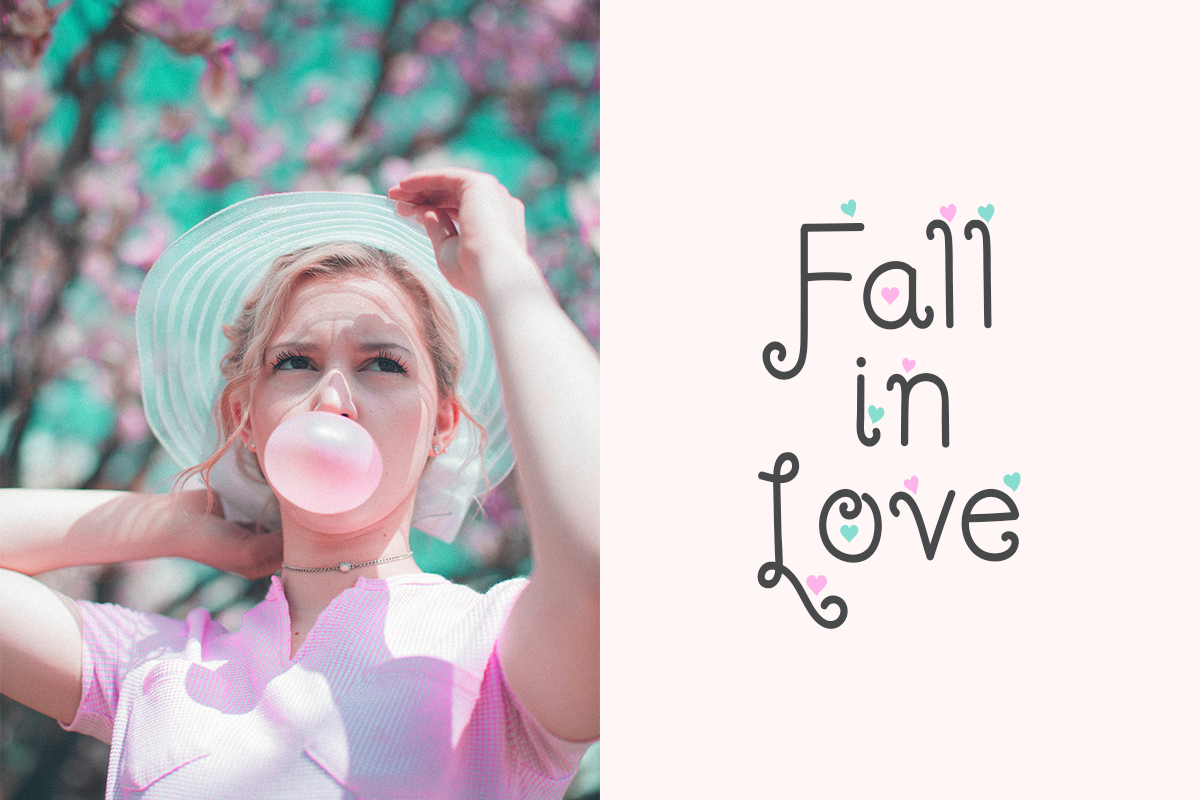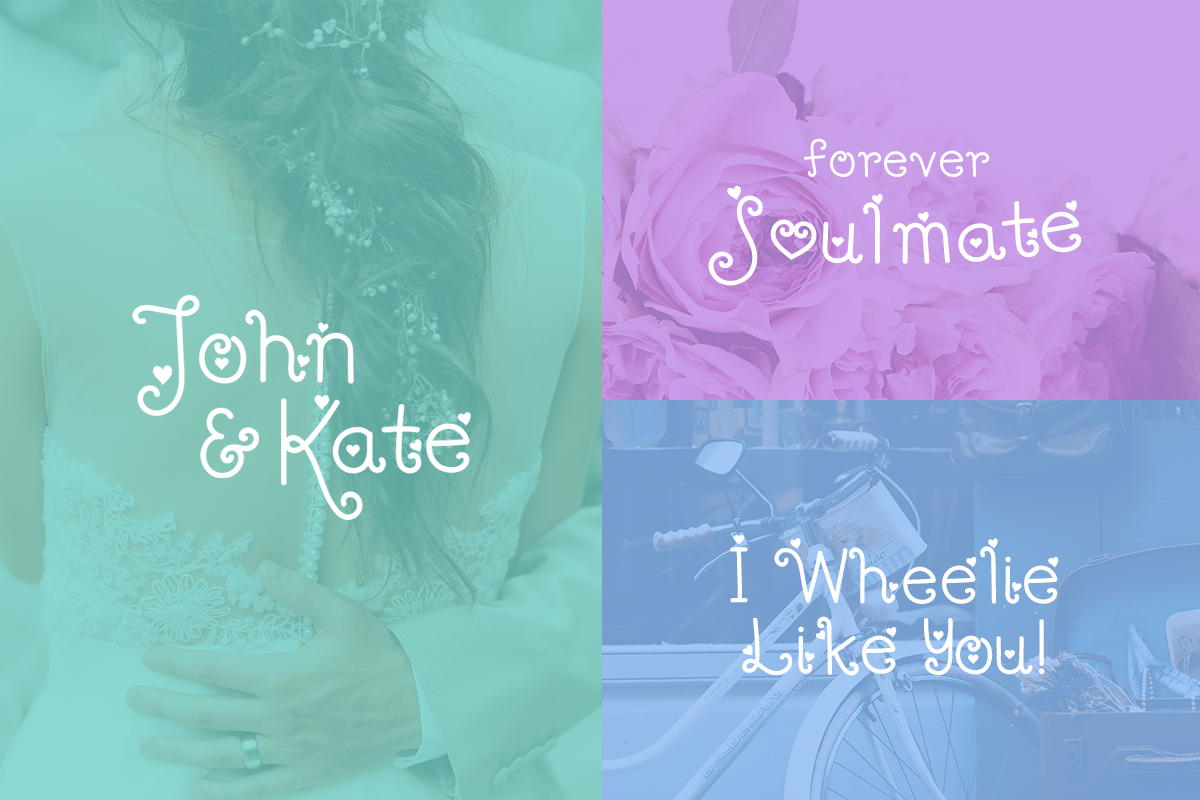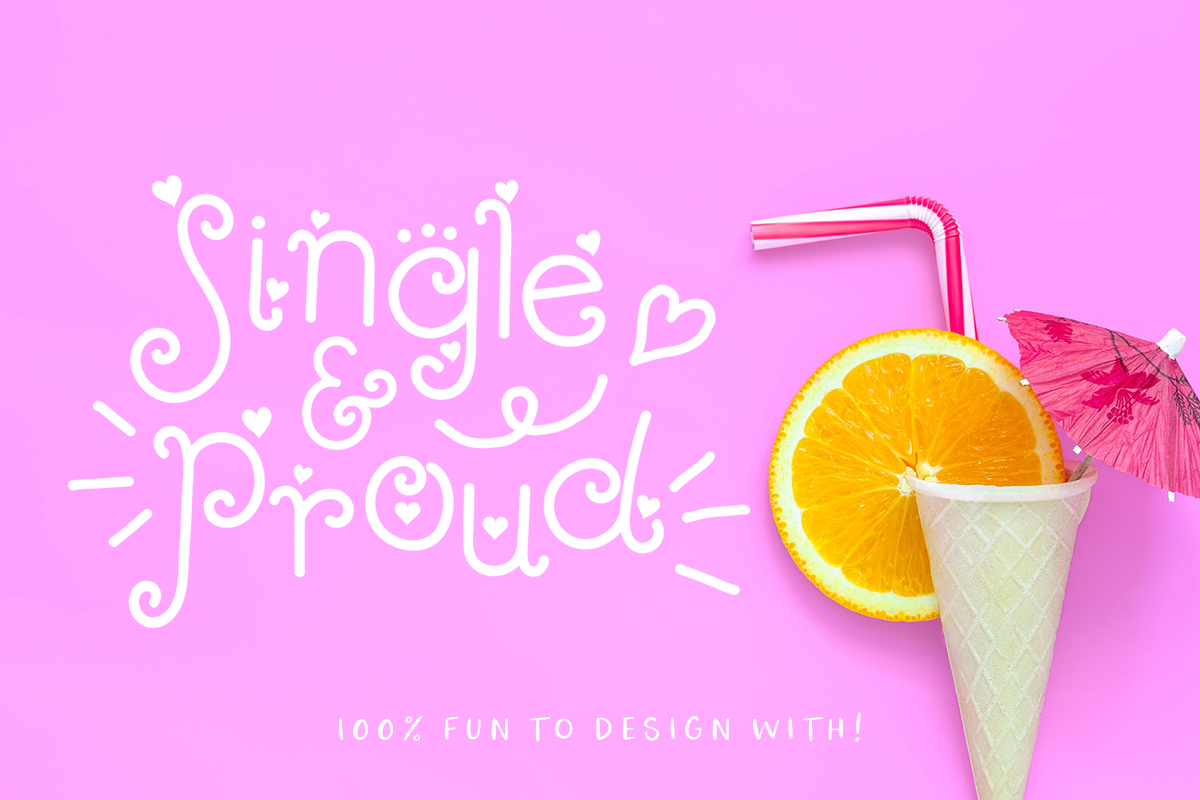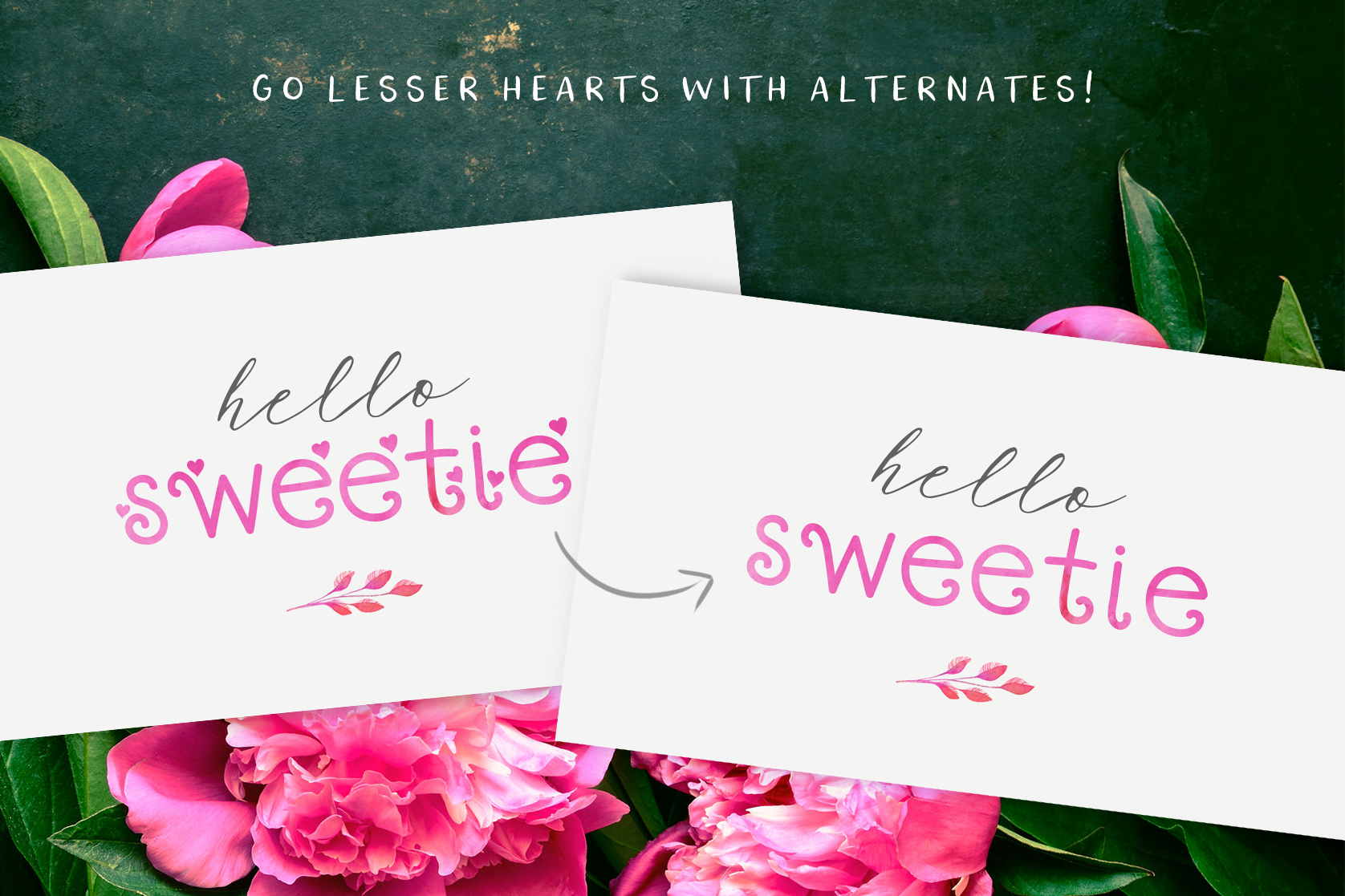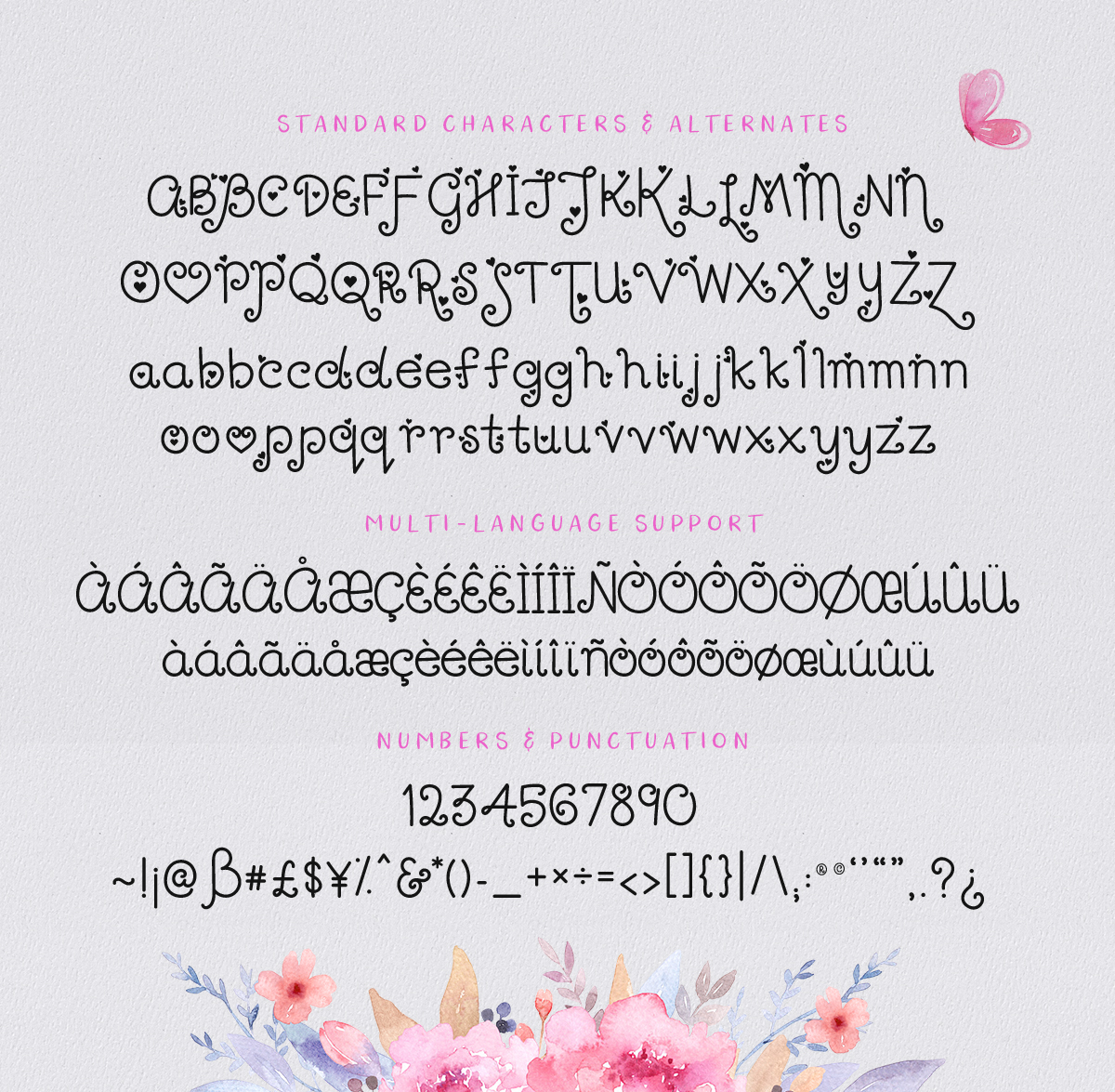
Hey Love Font
About Hey Love Font
Hey Love is a lovey-dovey hand lettered script typeface with a monoline style. Perfect for Valentine’s Day designs & craft projects, but let your imagination lead the possibilities!